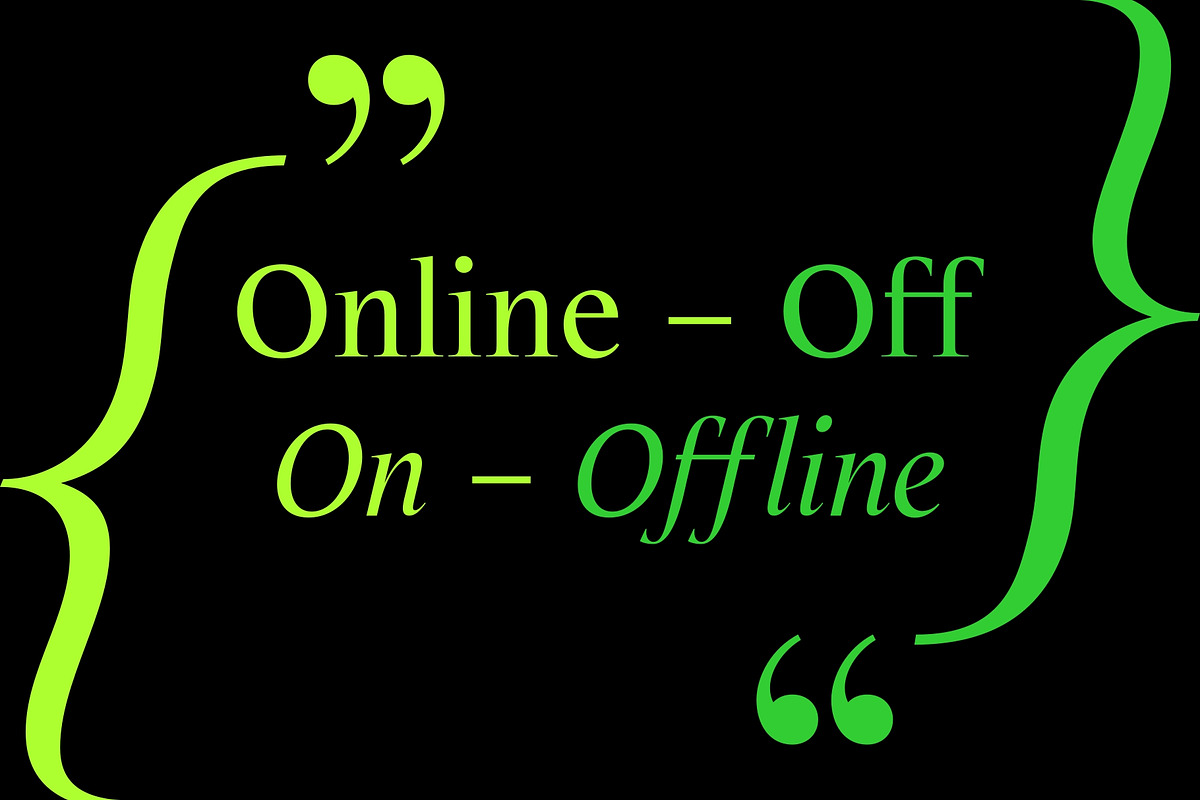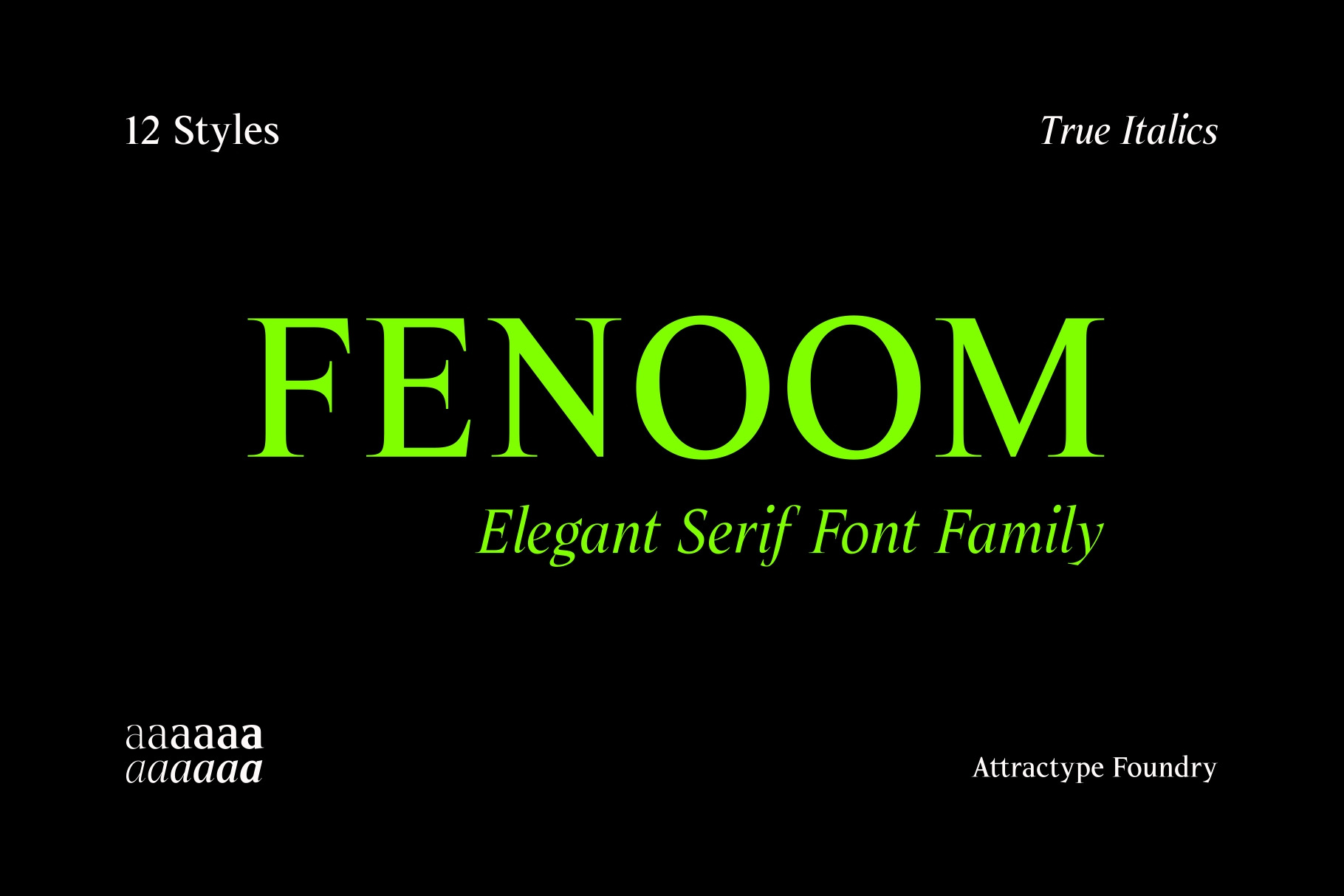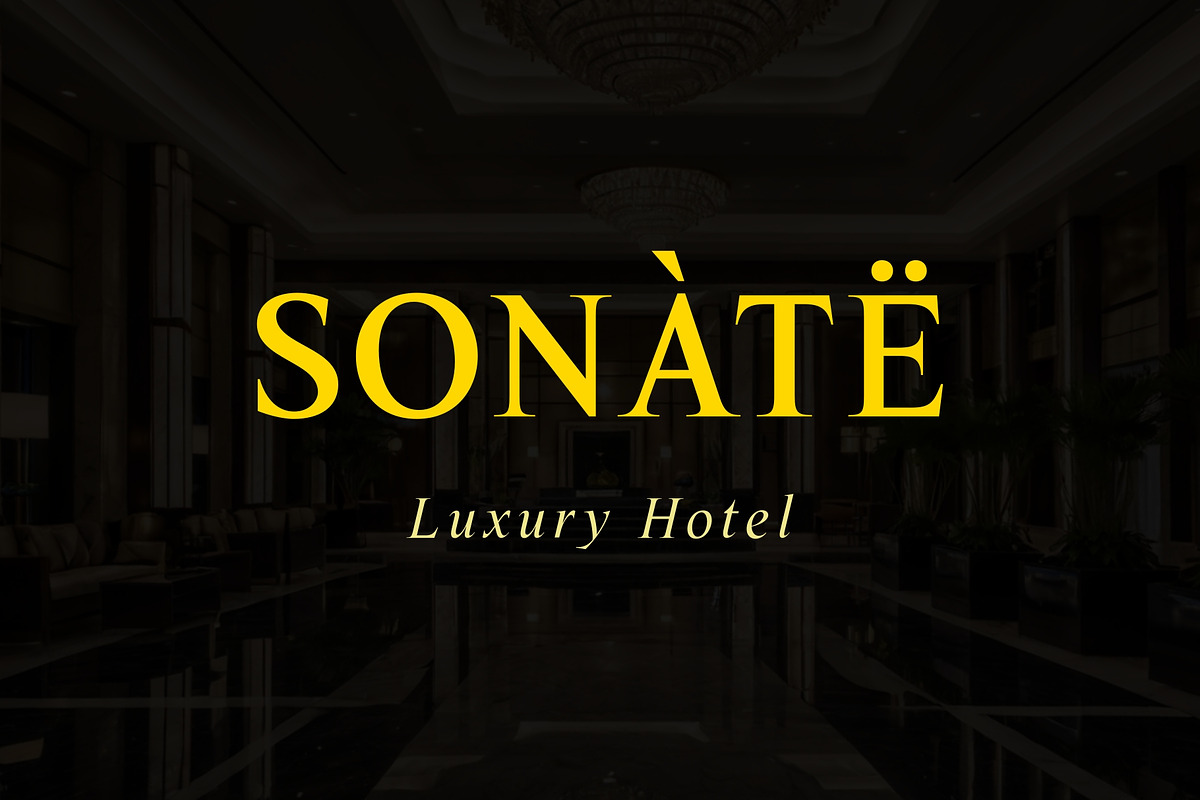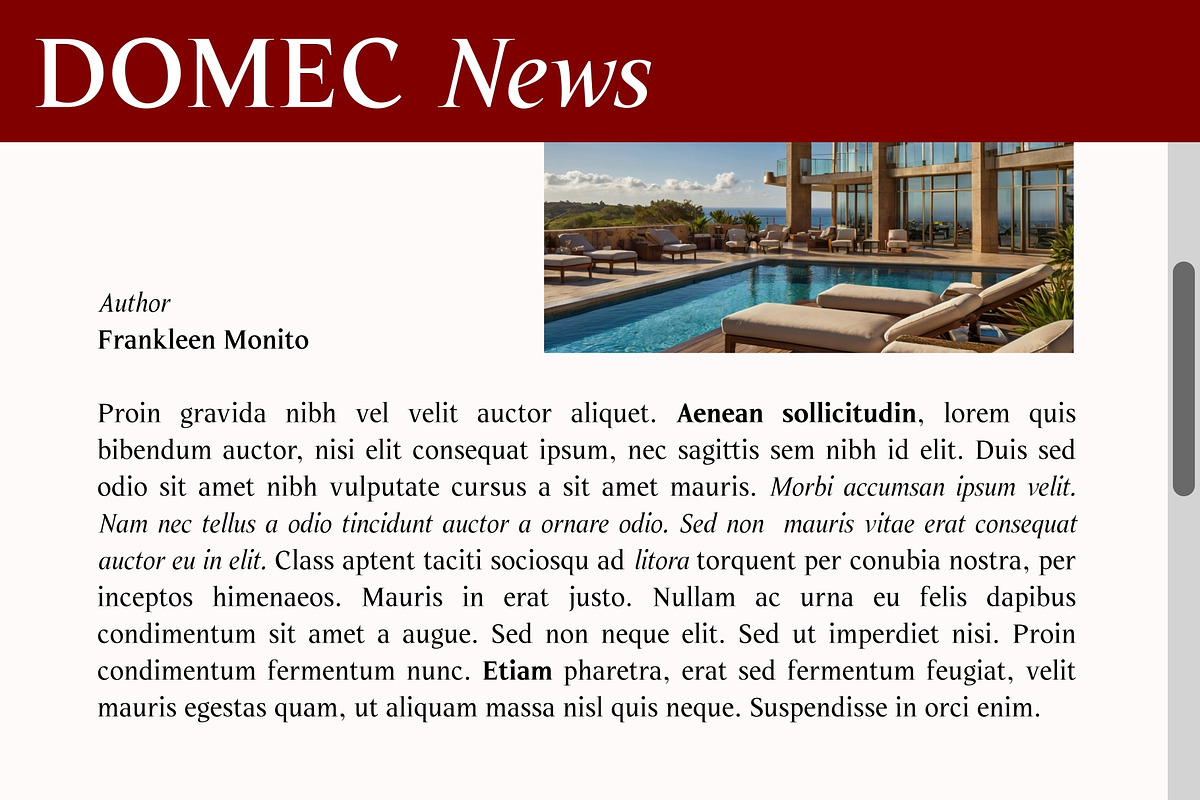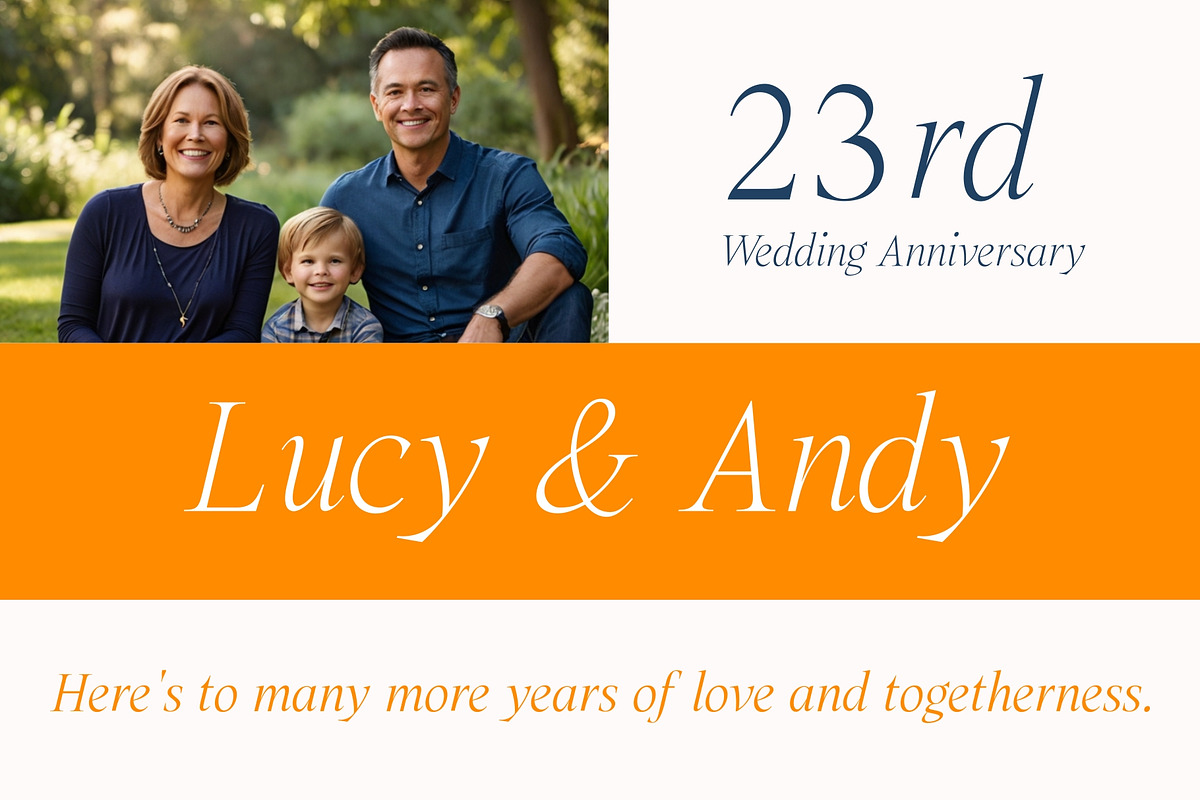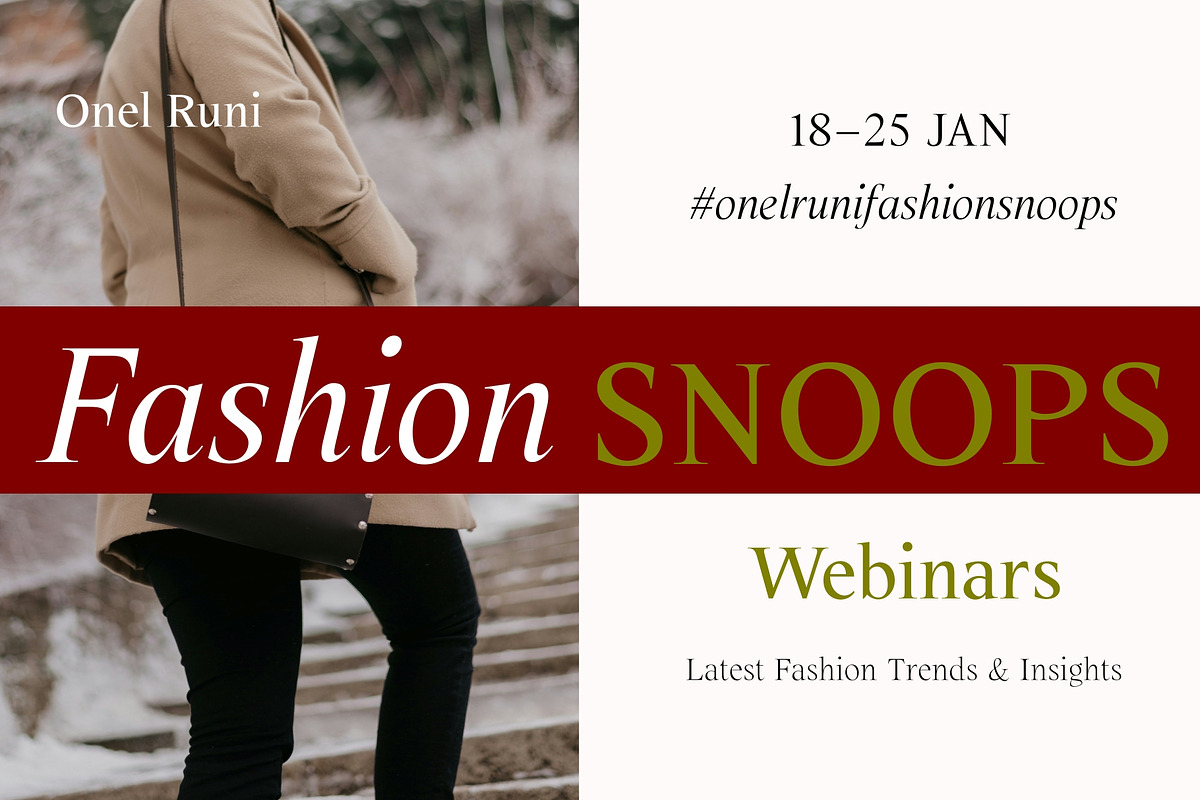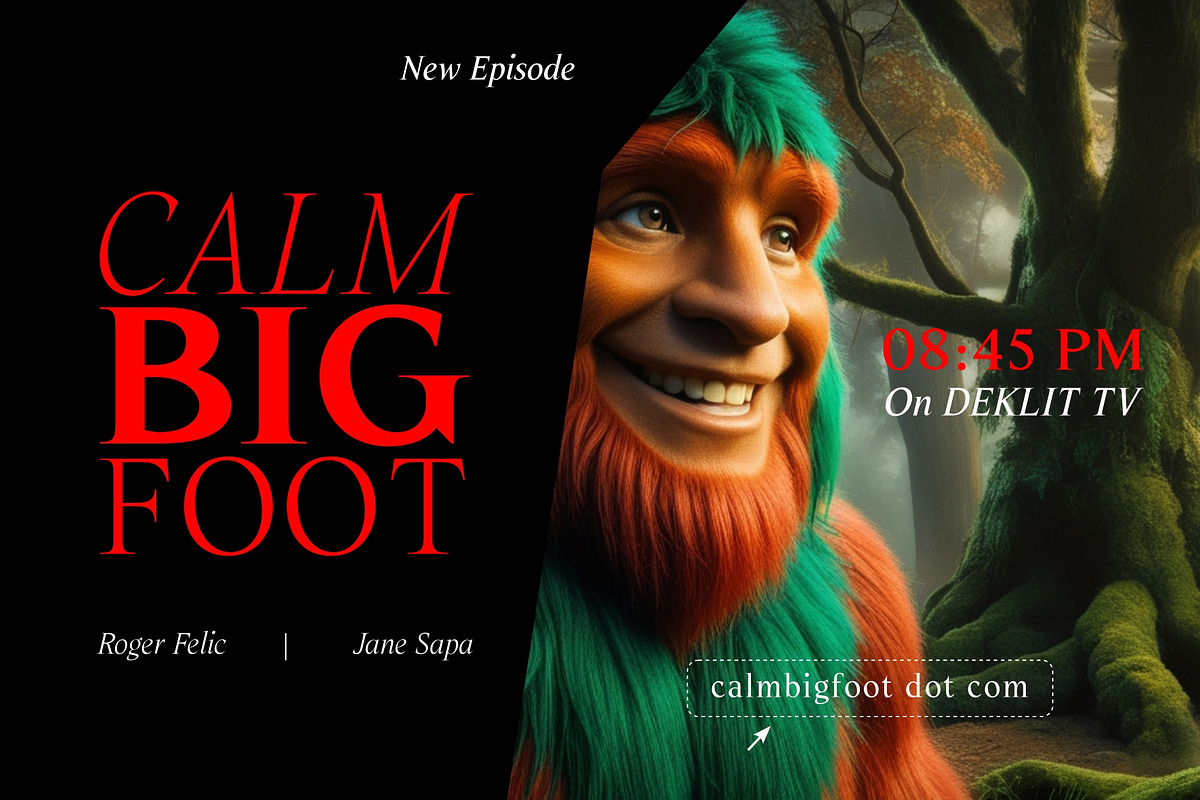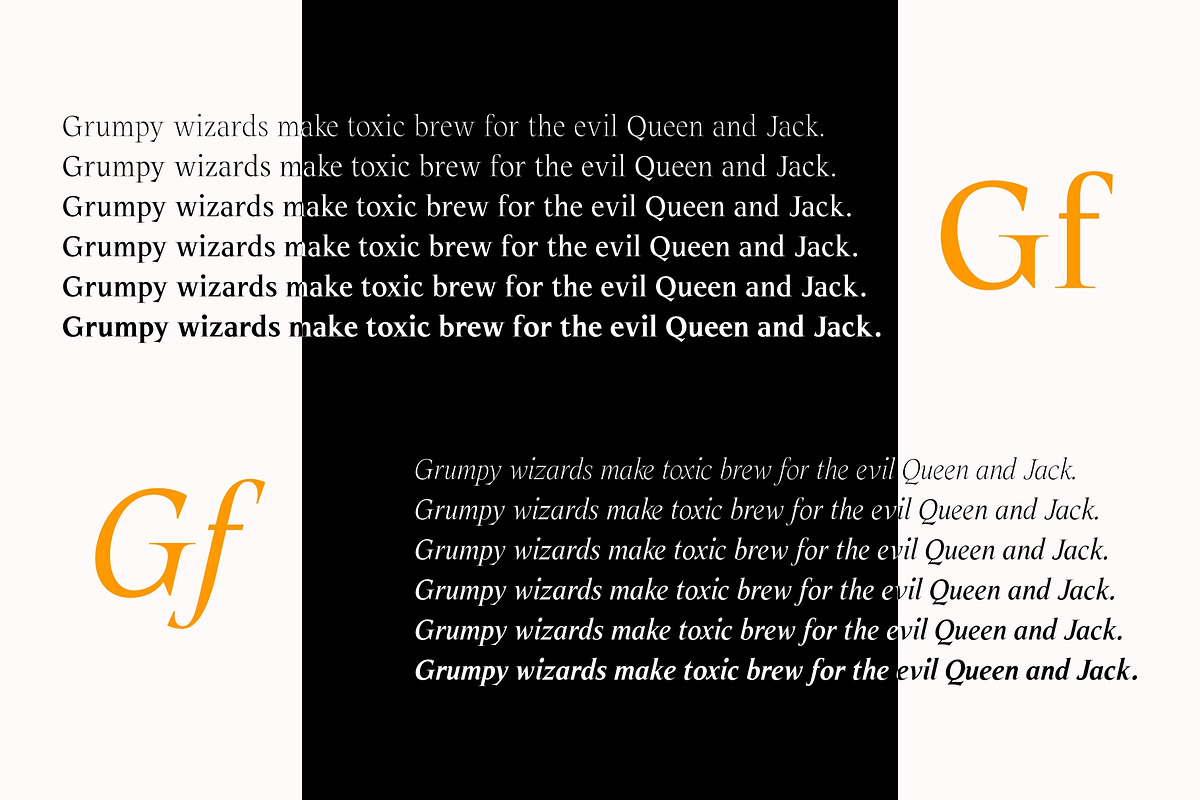
Fenoom Elegant Serif Font
Fenoom - An elegant and stylish alternative serif font, high contrast, easy to read, supports true-italic style, and is multilingual.
This font is suitable for various design and printing projects such as advertisements, banners, posters, books, magazines, logo designs, web pages, and more.